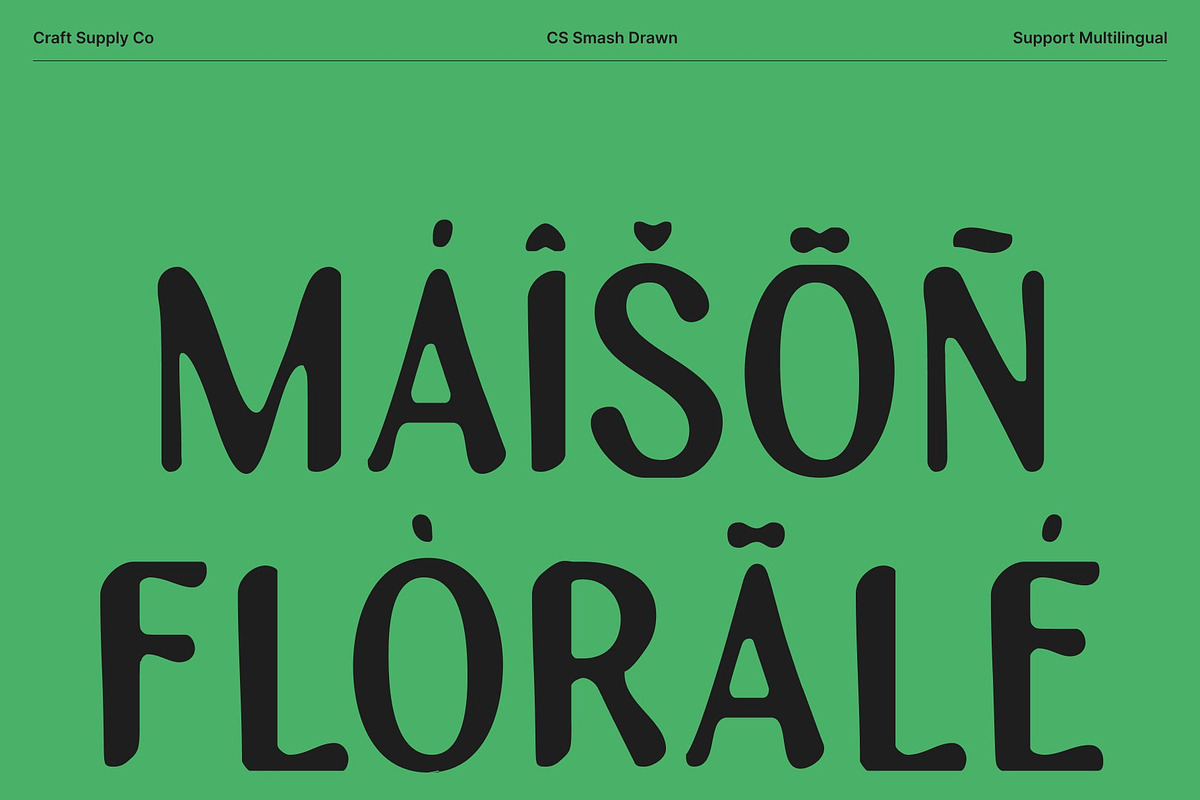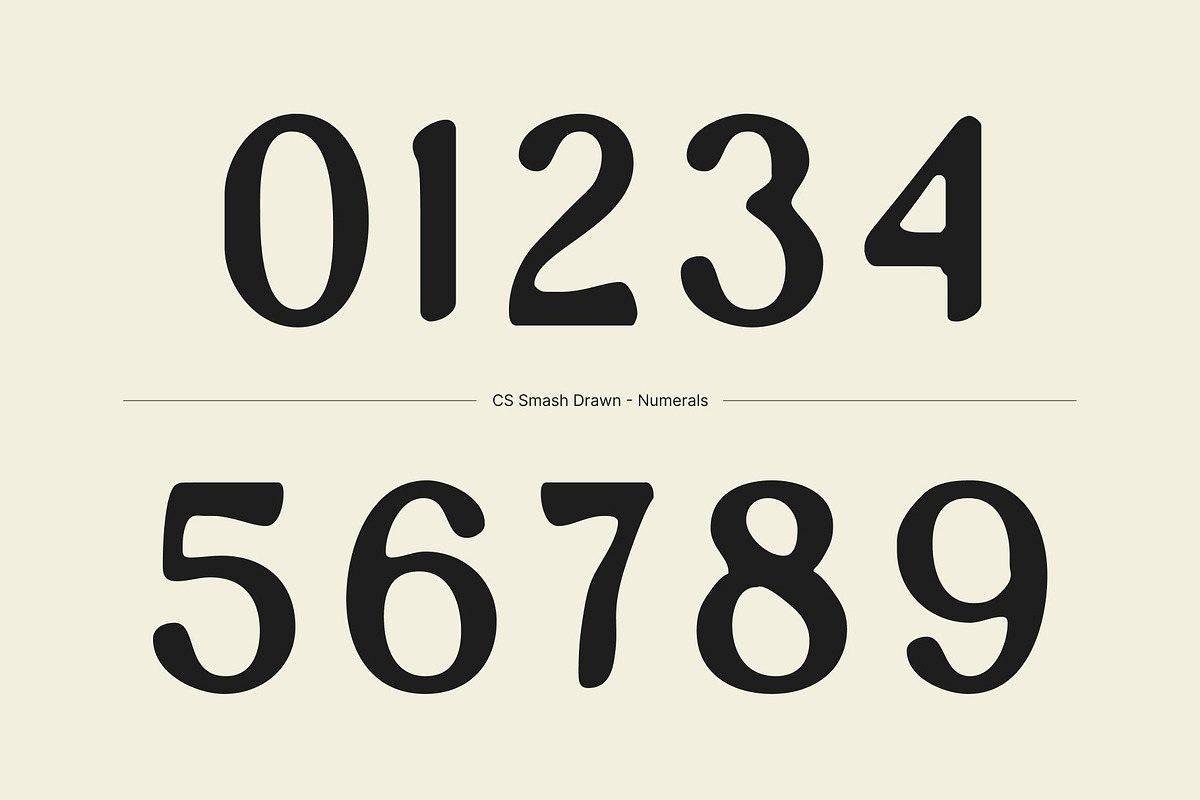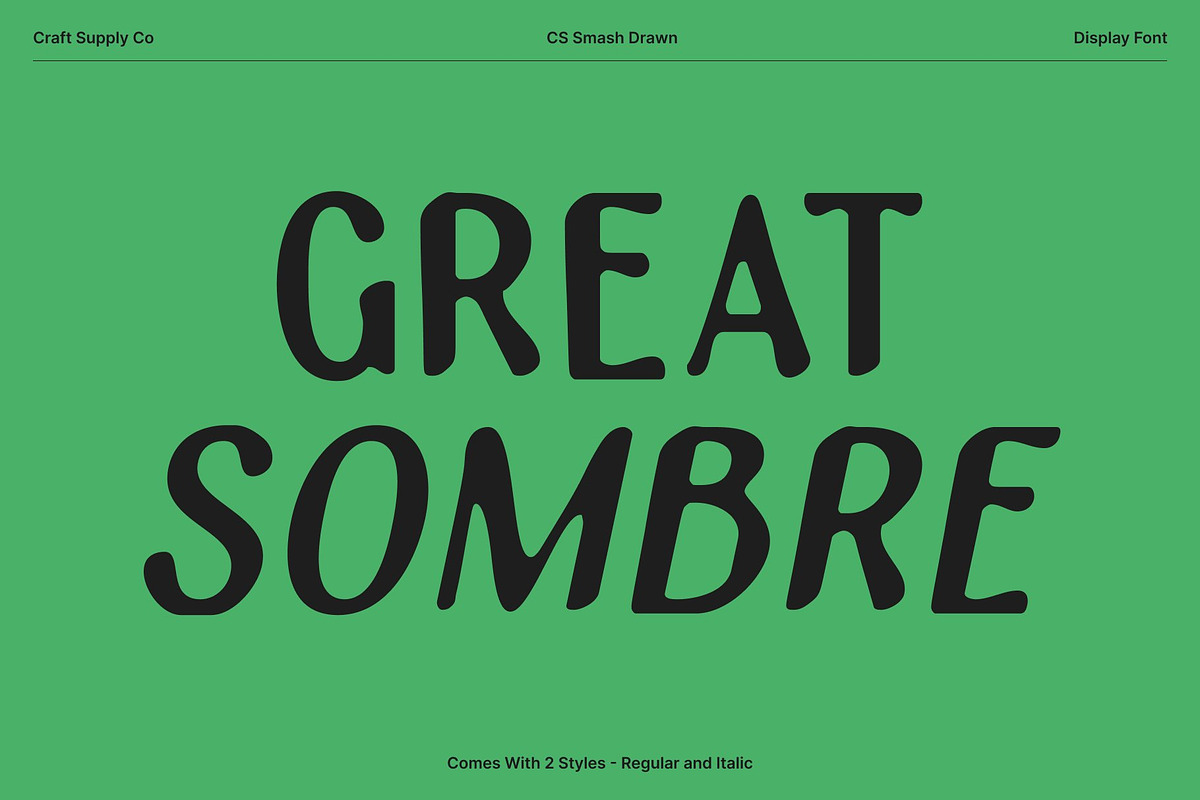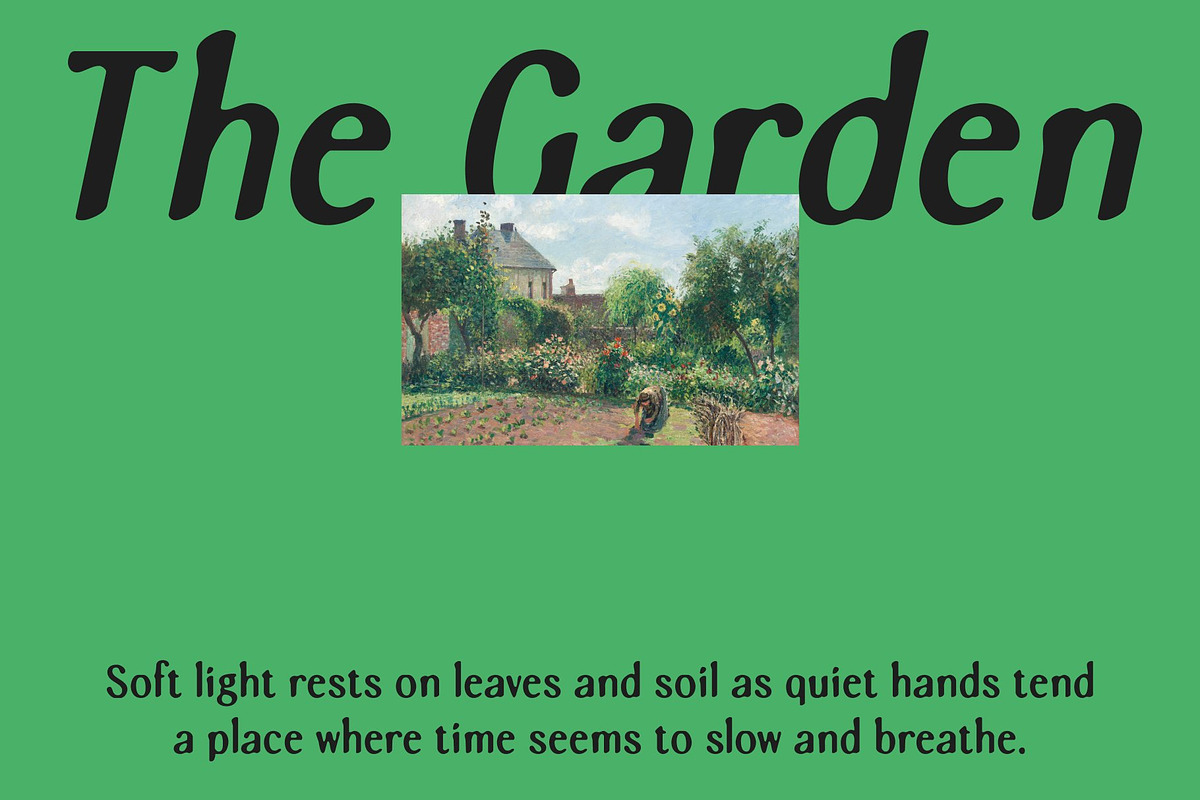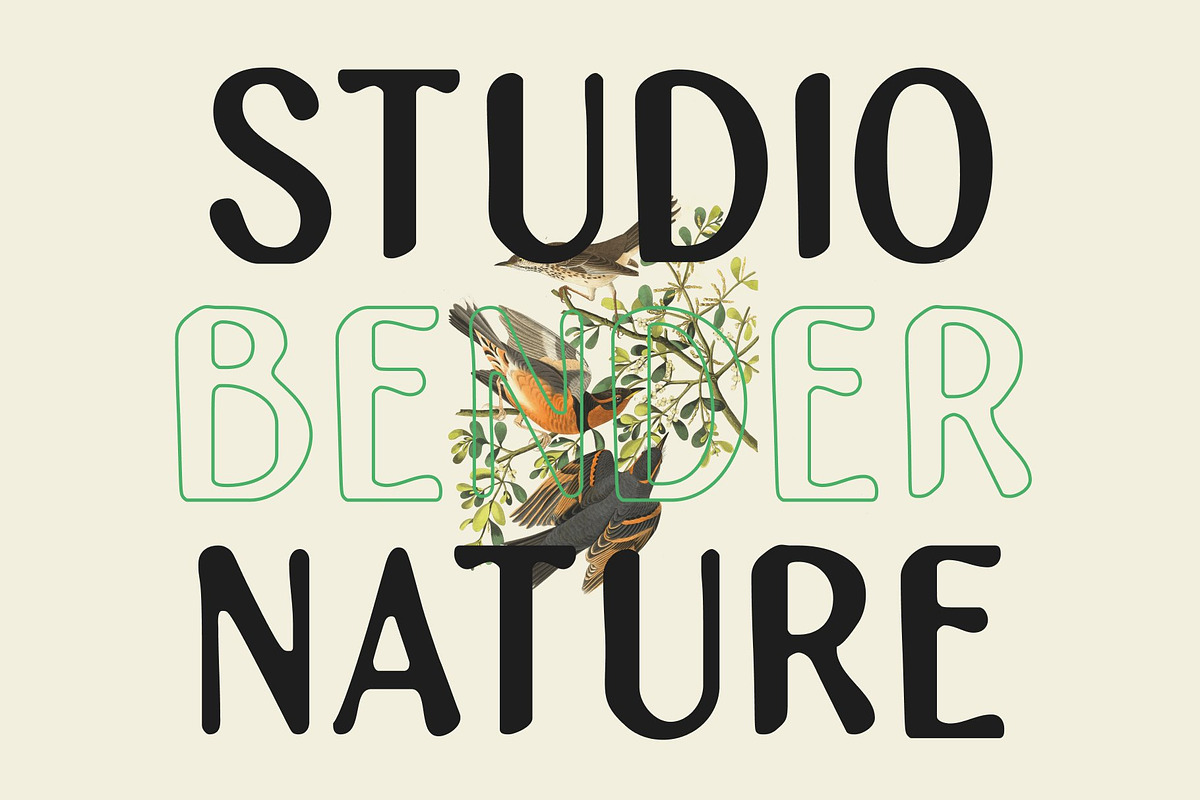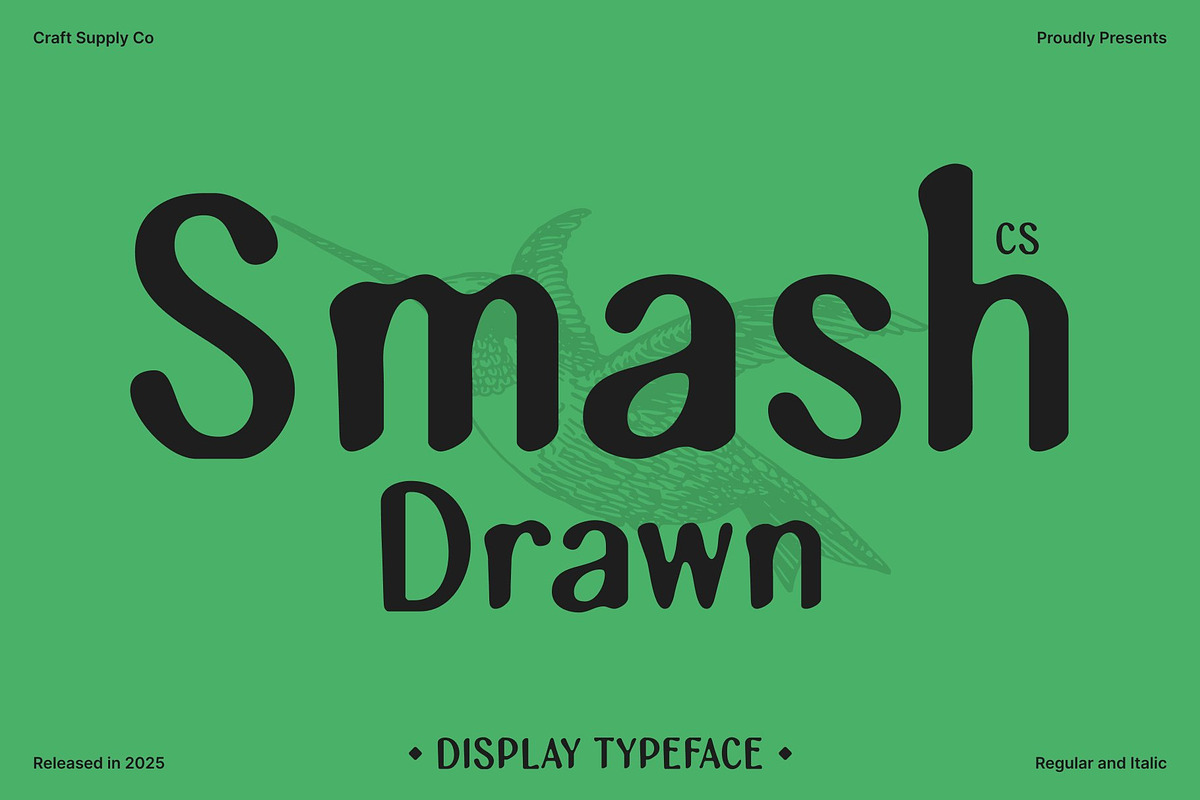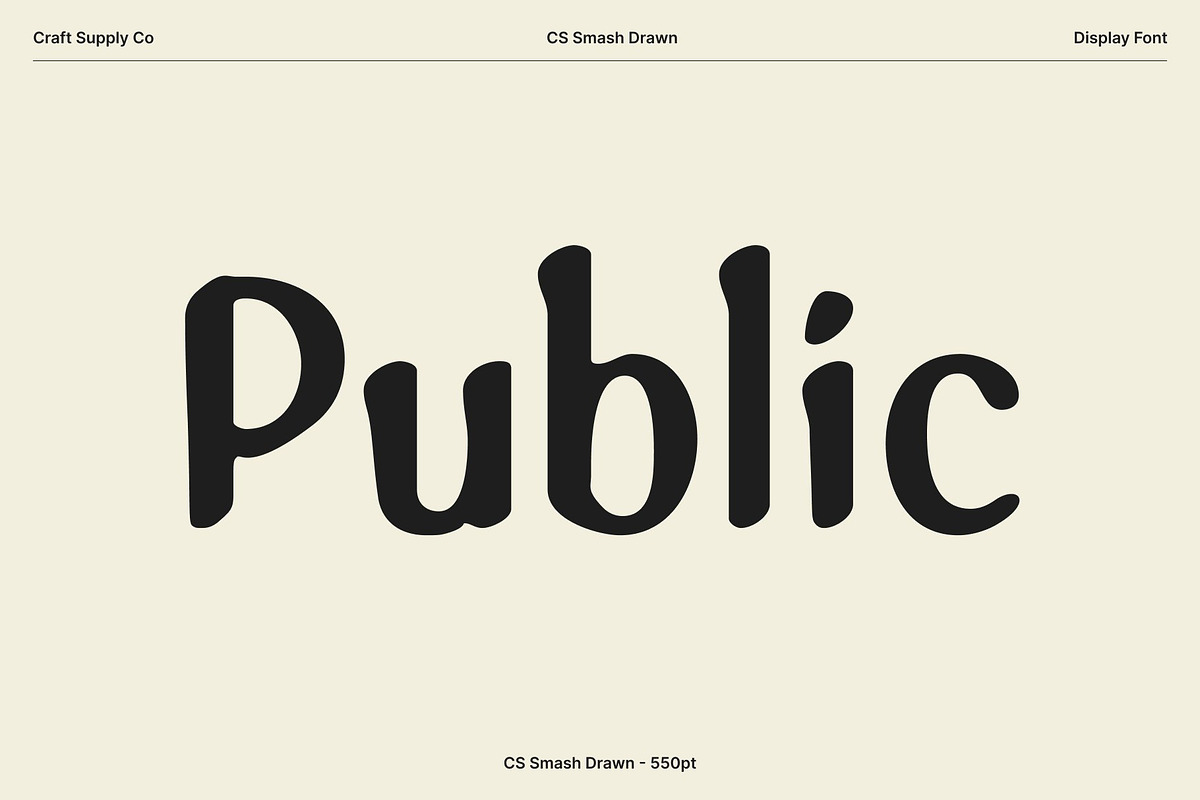
CS Smash Drawn
CS Smash Drawn – Clean Structure with Handwritten Expression
Clean Sans Forms with Professional Readability This is a sans serif font built on clean, balanced letterforms that prioritize clarity and readability. Its straightforward structure and minimal proportions create a professional foundation, allowing text to remain clear and organized across various layouts. The neutral sans design makes the font highly adaptable, supporting both short headlines and extended text while maintaining a consistent, modern appearance.
Drawn Effect for Natural Handwritten Feel The drawn effect introduces a natural, handwritten quality that adds warmth and artistic character to the font. Subtle line variations and organic strokes give each letter a soft, human touch, making the typography feel naturally written rather than mechanically constructed. This handcrafted nuance enhances visual interest without sacrificing legibility, resulting in a font that feels both approachable and refined.
Minimal Style with Artistic Personality This font balances minimal design with expressive detail. Its clean structure keeps layouts simple and focused, while the drawn texture injects personality and creative energy. This combination makes the font ideal for projects that need to feel professional yet personal, offering a distinctive voice that stands out subtly rather than loudly.
Versatile for Editorial, Logo, and Branding Systems Designed for broad usability, performs well in editorials, logos, brand identities, packaging, and cohesive branding systems. Its adaptability allows it to work across print and digital media with ease.